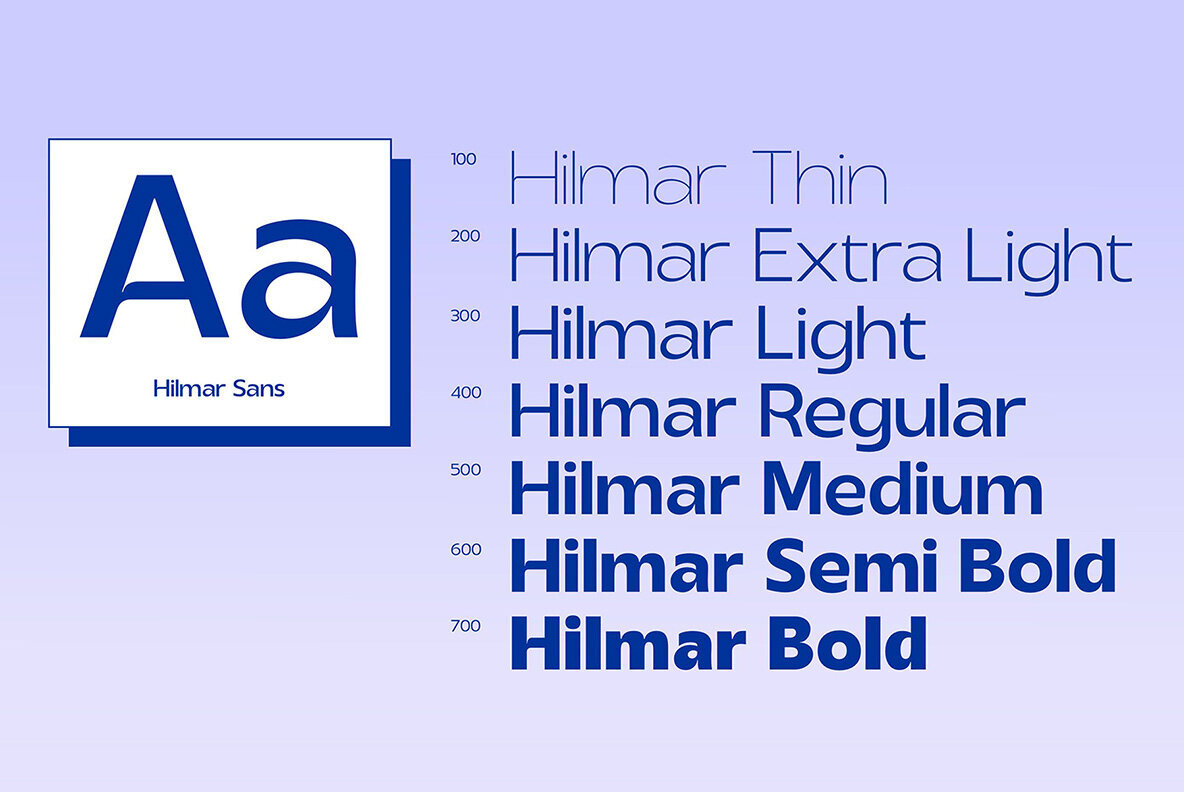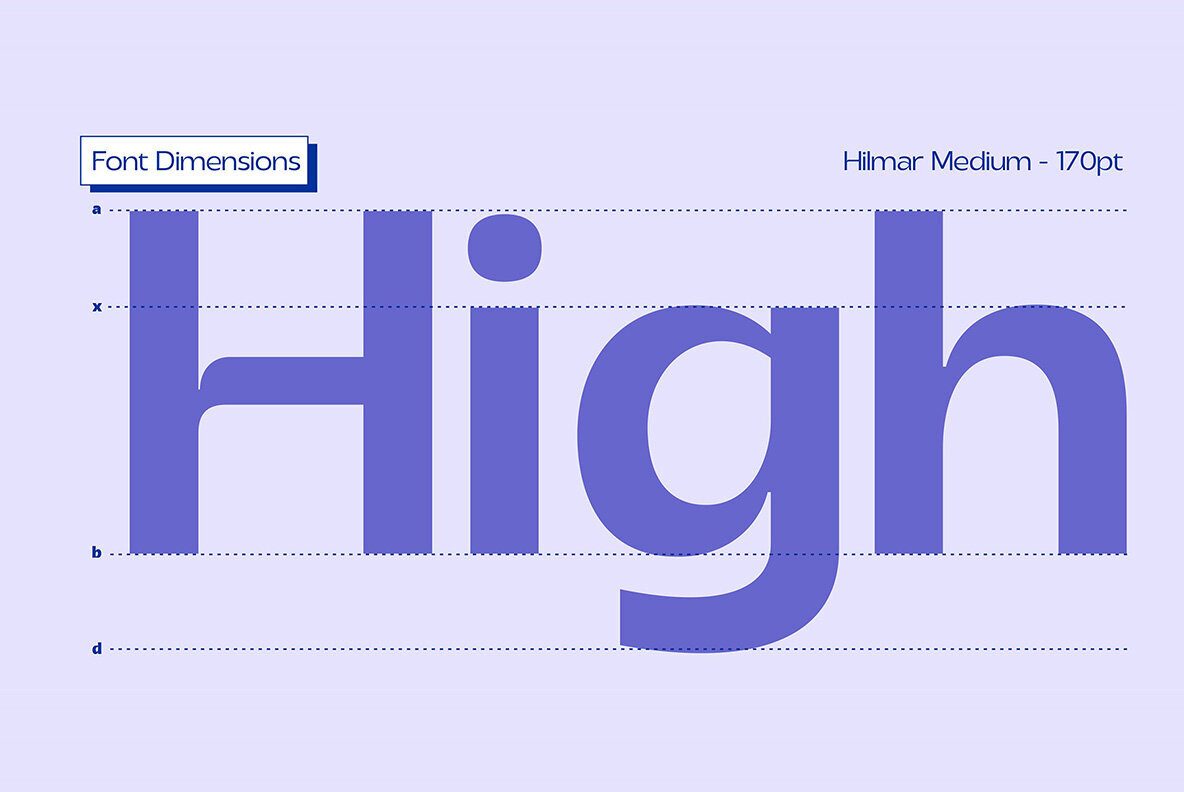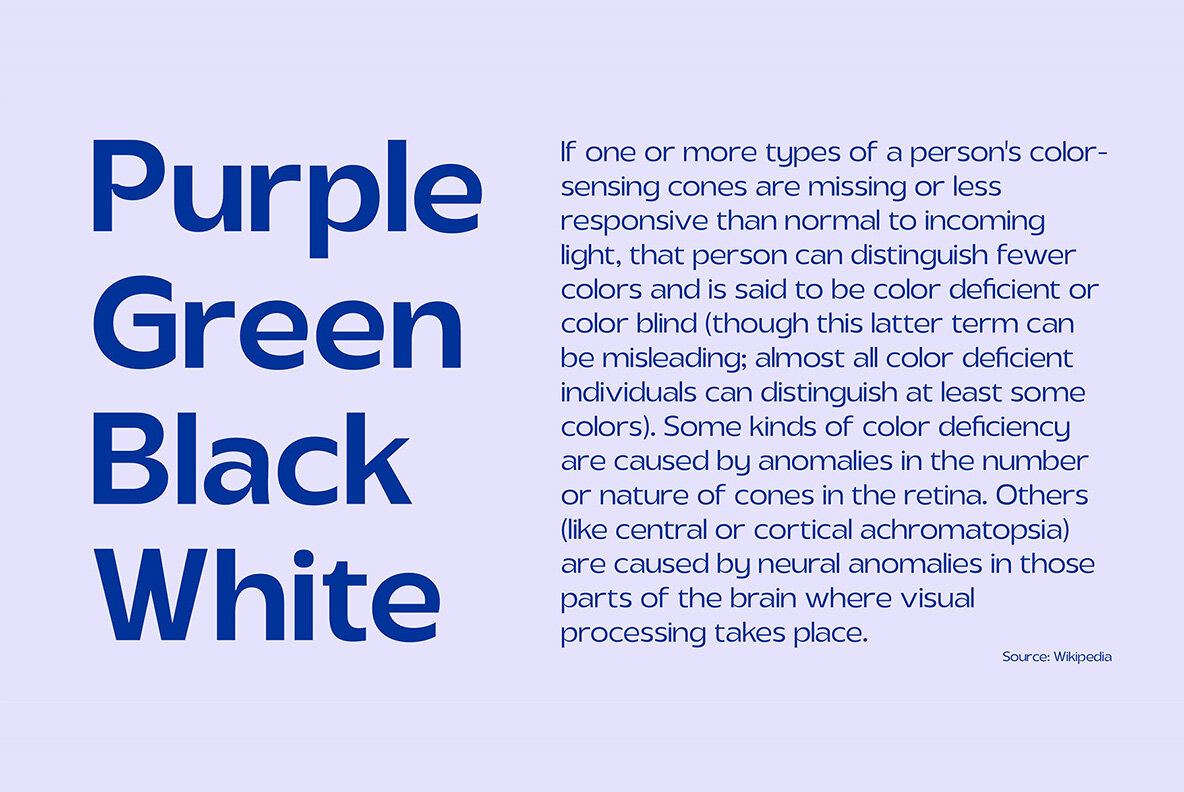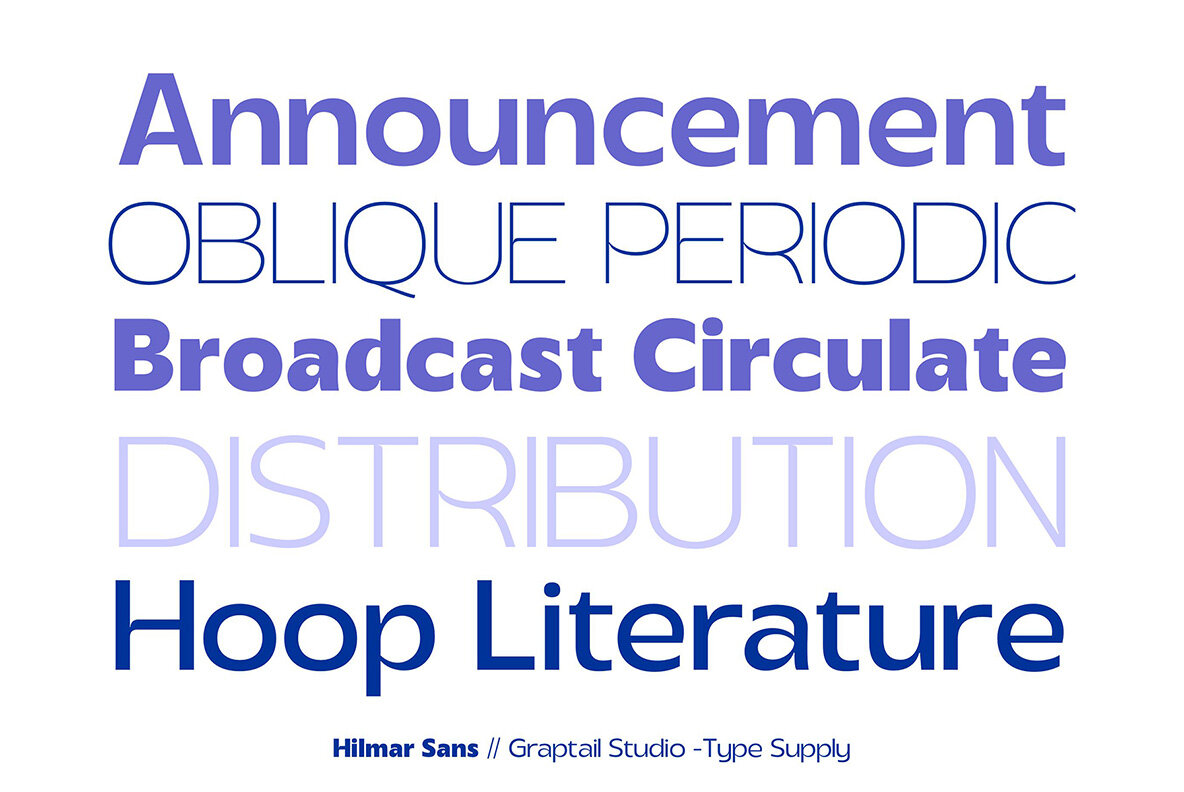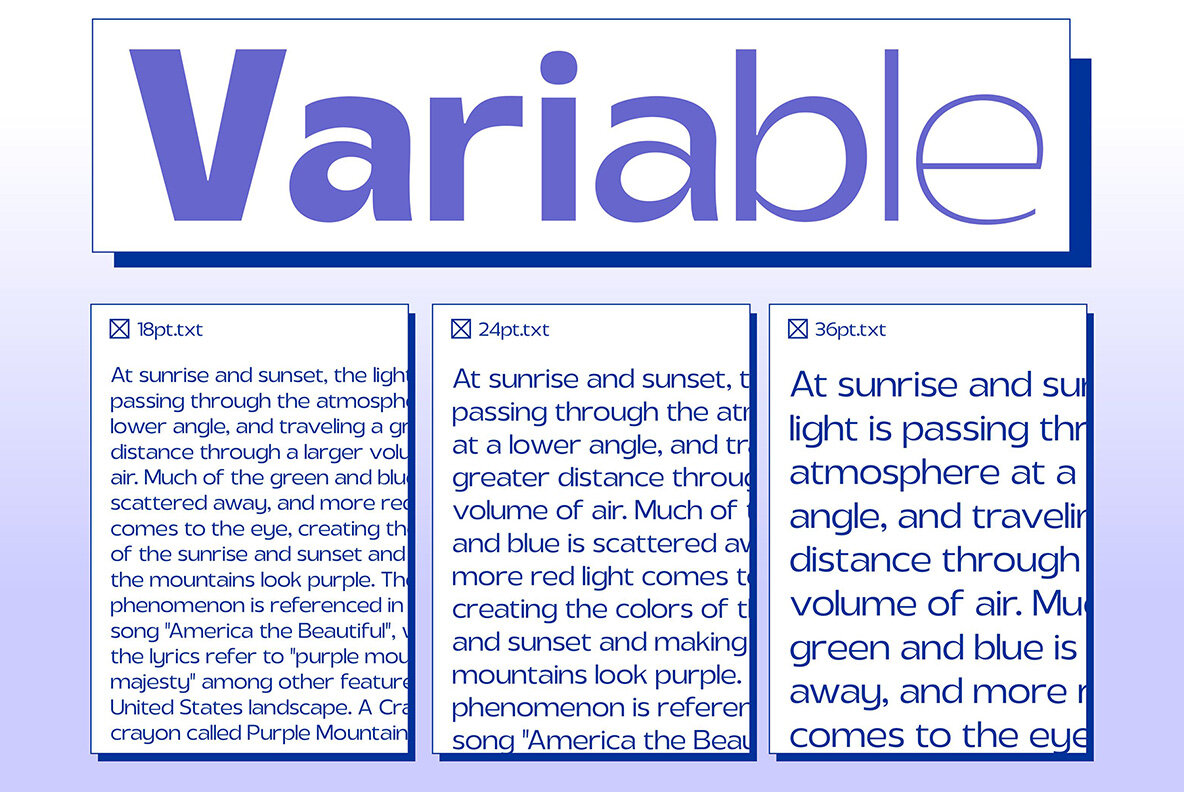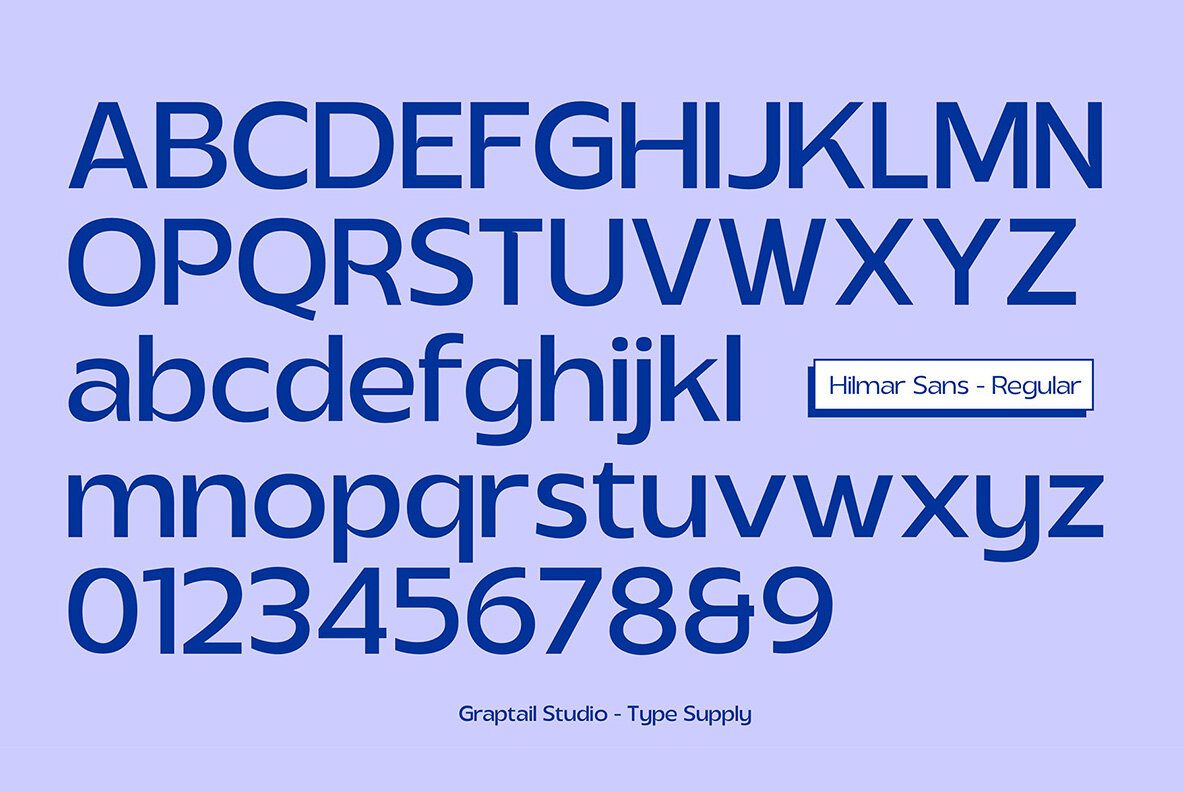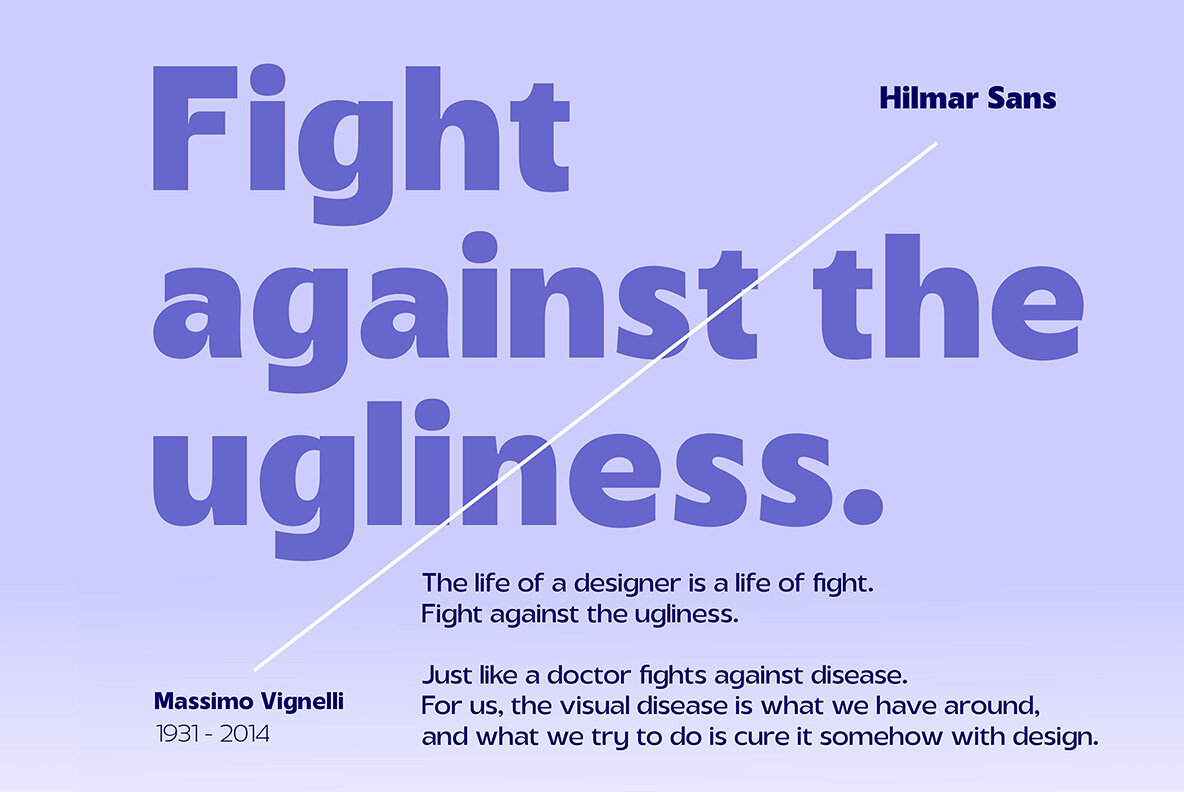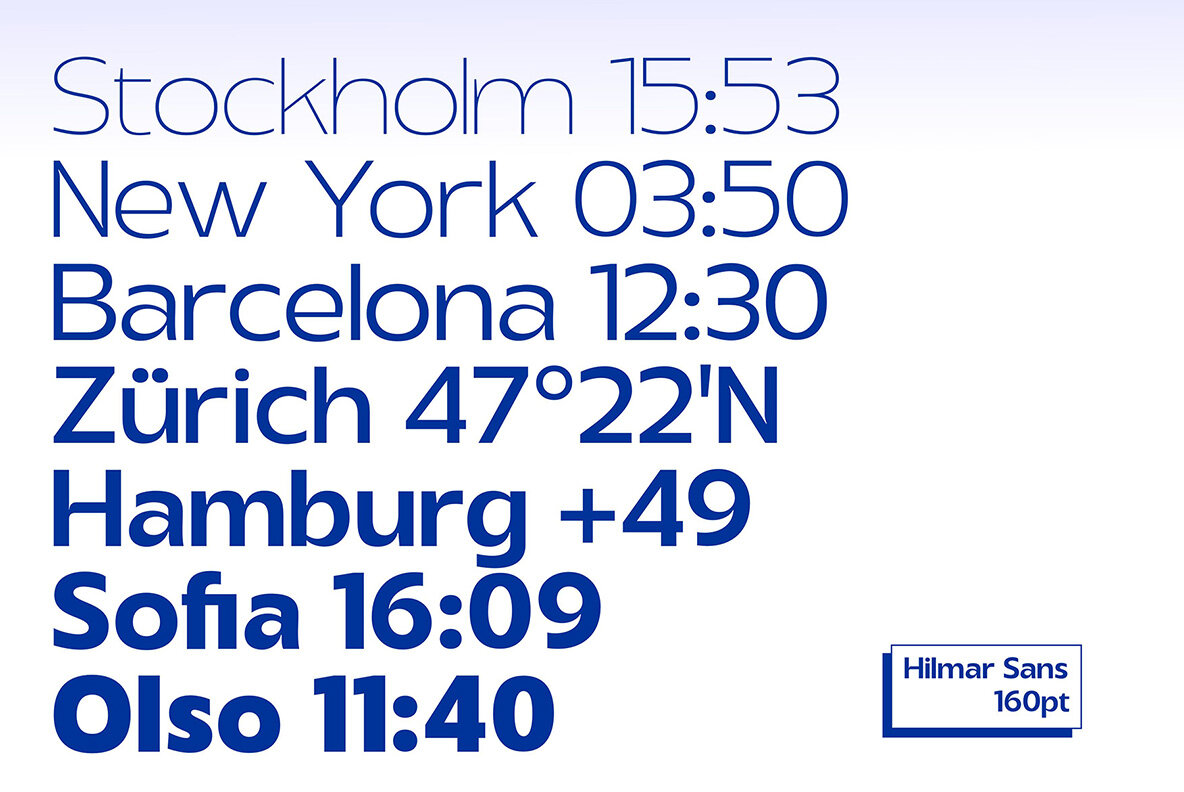
Hilmar Font
Hilmar Sans by Graptail offers a sleek and adaptable solution for your design needs. With its neo-grotesque design, this typeface family includes seven distinct weights, ranging from thin to bold, catering to a wide array of projects. Its compatibility with most European languages enhances its versatility, making it an excellent choice for diverse applications. The clean lines of Hilmar Sans are ideal for various design contexts, whether crafting branding elements, publishing materials, or developing digital user interfaces. From book titles to magazine layouts, this typeface seamlessly integrates into any project requiring a final touch of sophistication.Hilmar Sans: A Versatile Neo-Grotesque Typeface